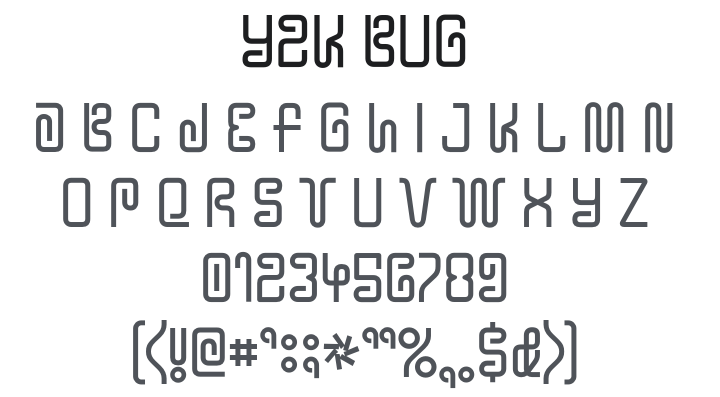
Y2K Bug Font
About Y2K Bug
Y2K Bug is a bold, square-grid display typeface where every letterform is built from thick rounded-corner tube-like strokes arranged in a maze-like pattern — each character looks like a circuit board trace or a worm navigating a square tunnel. The consistent rounded corners and uniform stroke weight give it a clean, retro-digital personality. Perfect for tech branding, retro computing aesthetics, cyberpunk designs, game titles, and any headline needing bold, maze-like digital intrigue.